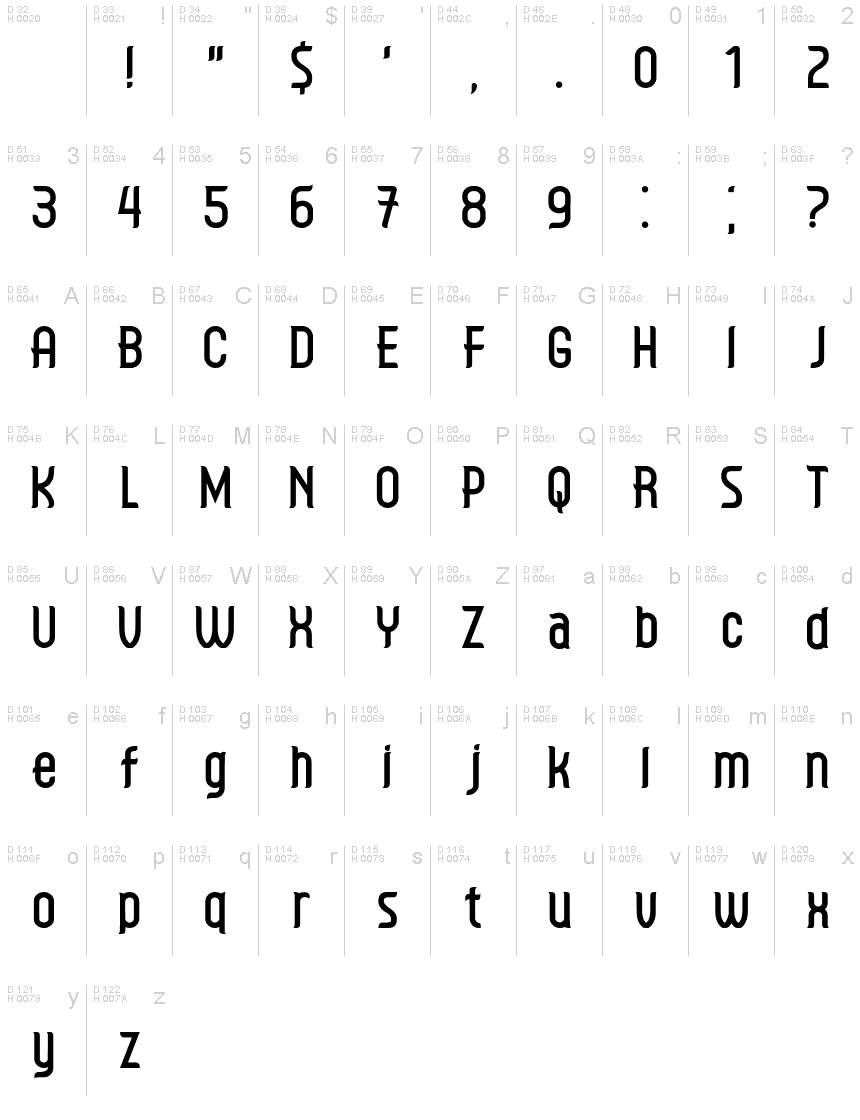
Bubba Regular
Bubba, a retro display font designed by Vladimir Nikolic, brings an air of nostalgia to any project. With its semi-light weight and condensed width, Bubba is perfect for headlines or signage that need to grab attention without taking up too much space. The vintage feel of this font is ideal for projects that require a touch of old-school charm, such as branding for a hipster coffee shop or packaging design for artisanal products. Whether used on a website, product label, or print ad, Bubba adds personality and style to any project it’s used in.